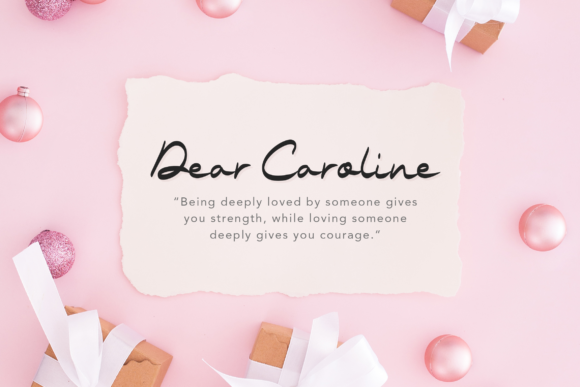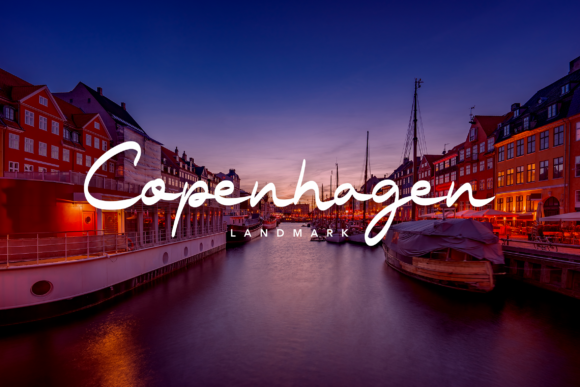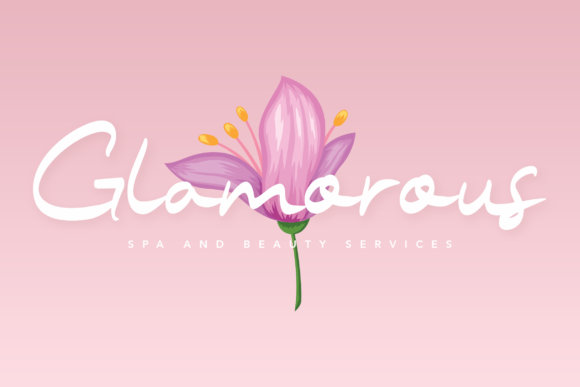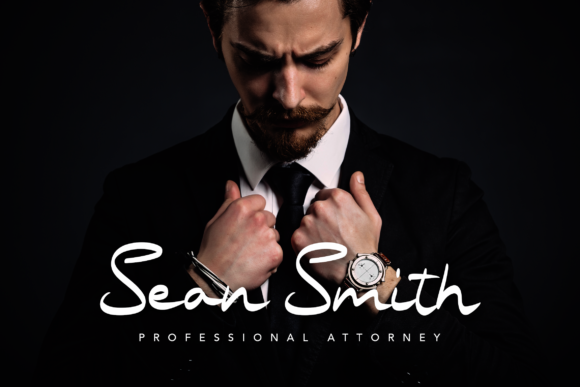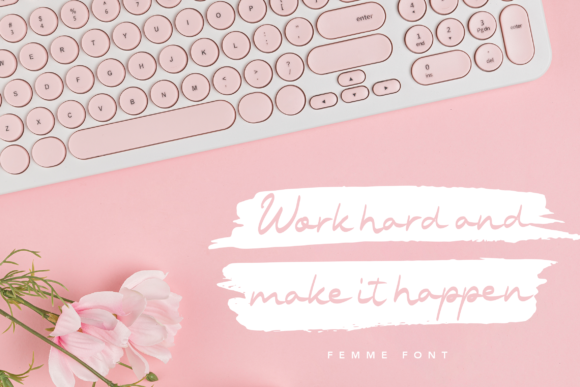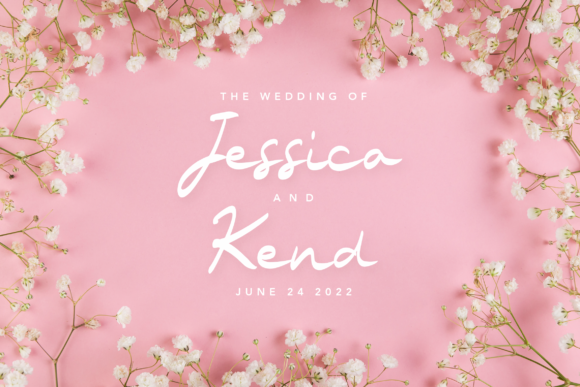
Falling in Love with Femme Font: A Designer’s Delight
I still remember the design project that led me to discover Femme Font. I was working on a branding campaign for a luxury fashion brand, and I was struggling to find the perfect font that exuded elegance, charm, and sophistication. The client was specific about wanting a font that would make their brand stand out, and I was on a mission to deliver. After hours of scouring through font libraries and testing various options, I stumbled upon Femme Font, and it was love at first sight! ✨
An Honest Review of Femme Font
What I Love About Femme Font
- ✨ Stunning display font that radiates clarity, charm, and elegance
- ✅ Perfect for luxury brands, fashion designs, and high-end projects
- 💃 Highly legible, even at large sizes
- 🎨 Beautifully crafted with attention to detail and a touch of sophistication
While Femme Font is an exceptional font, there are a few minor quirks to be aware of: 🤔
- ⚠️ May not be suitable for body text or long-form content due to its display nature
- ⚠️ Some characters may not work well at very small sizes
- Experiment with OpenType features, such as stylistic alternates and glyphs, to add visual interest to your design
The Backstory Behind Femme Font
Femme Font was designed with the intention of creating a font that embodies the essence of femininity and elegance. The designer aimed to craft a font that would be both beautiful and functional, with a unique personality that would make it stand out in the world of typography. 💫
Q: What is Femme Font best suited for?
A: Femme Font is ideal for luxury brands, fashion designs, and high-end projects where elegance and sophistication are paramount.
Q: Can I use Femme Font for body text?
A: While Femme Font is a beautiful font, it’s primarily designed for display purposes. It may not be the best choice for body text or long-form content.
Q: Does Femme Font support OpenType features?
A: Yes, Femme Font supports OpenType features, including stylistic alternates and glyphs, which can add visual interest to your designs.